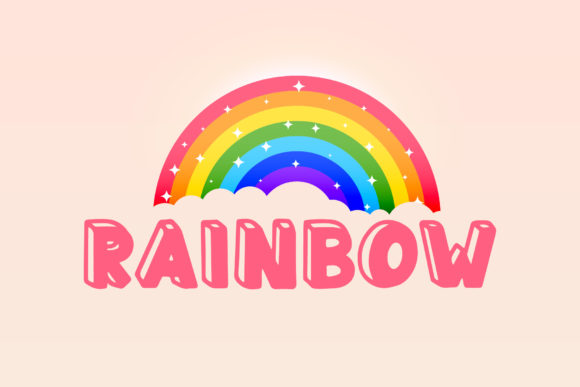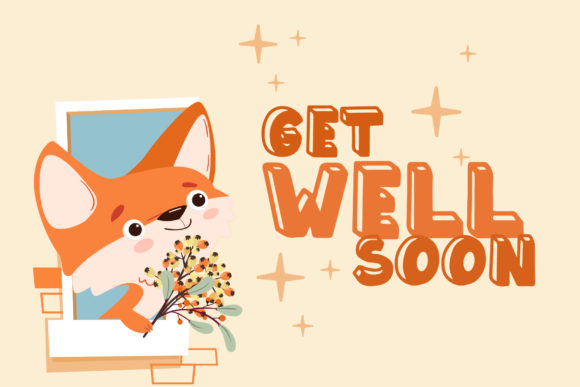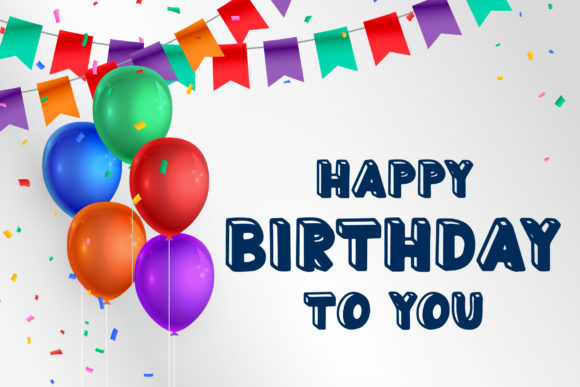
Introduction to Paperblue Font
Do you remember the moment when you stumbled upon the perfect design element for your creative project? The one that made everything come together in a beautiful, cohesive way? For designers, that moment is often elusive, but with the right tools, it’s within reach. In this article, we’ll explore one such design resource that’s sure to make your projects shine: the Paperblue Font.
With its clean and soft lines, the Paperblue Font is an ideal choice for a variety of applications, from logos and branding to social media graphics and DIY crafts. Whether you’re working on a free download or a high-quality design project, this font is sure to add a touch of elegance and sophistication to your work. And the best part? It’s incredibly versatile, making it a valuable asset for designers of all levels.
Key Features of Paperblue Font
- High-quality design resource with a unique, creative touch suitable for various projects.
- Includes a range of characters and glyphs, making it an ideal choice for creative projects requiring a wide character set.
- Designed to be versatile and adaptable, the Paperblue Font is suitable for a variety of design applications, from digital to print media.
Honest Review: Paperblue Font
As a designer, I’m always on the lookout for high-quality design resources to enhance my creative projects. The Paperblue Font is one such resource that caught my attention. In this review, I’ll share my honest thoughts on this font.
What works well: ✨ The Paperblue Font has a unique, modern aesthetic that makes it perfect for contemporary design projects. The font is available for free download, which is a huge plus for designers on a budget. It’s also highly versatile and can be used for a variety of purposes, from digital designs to print materials.
What doesn’t work well: ⚠️ One of the limitations of the Paperblue Font is that it doesn’t come with a transparent background, which can make it difficult to use in certain design scenarios. Additionally, the font is only available in a limited number of weights, which may not be ideal for designers who need a wide range of font options.
- High-quality design resource
- Unique, modern aesthetic
- Transparent background not available
- Limited number of weights
Overall, the Paperblue Font is a solid addition to any designer’s toolkit. While it has some limitations, its unique aesthetic and free download make it a great resource for creative projects. I would recommend it to designers looking for a modern, high-quality font.
Paperblue Font
The Paperblue Font is ideal for a variety of creative projects, including graphic design, digital art, and typography. It can be used for logos, branding, and marketing materials, as well as for personal projects and hobbies. With its transparent background and high-quality design, the Paperblue Font is a versatile design resource that can be used in a wide range of applications.